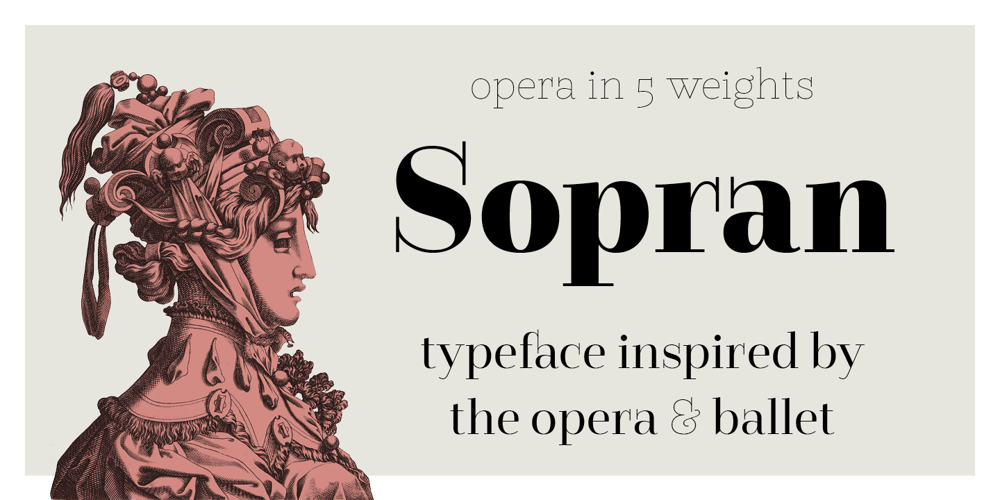
Sopran Font Family was designed by Krista Likar and published by Type Salon. Sopran contains 5 styles and family package options. The character of Sopran is expressed by long serifs that replace traditional drops. Contrast is distributed from monolinear in hairline and all the way to the extreme in the black style. Symbols and punctuation are drawn with monolinear strokes to give the typeface more playful typesetting. The long serifs allow for some interesting discretionary ligatures, like “fa” or “Ta”. With two stylistic sets the typeface enables different typesetting opportunities. Its characteristics should be expressed in headlines, larger texts, show posters, displays, signage etc.